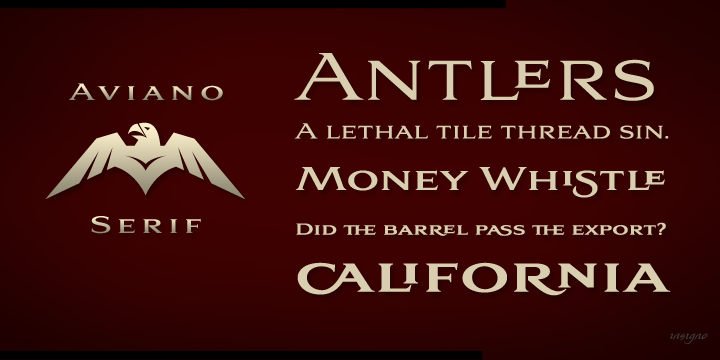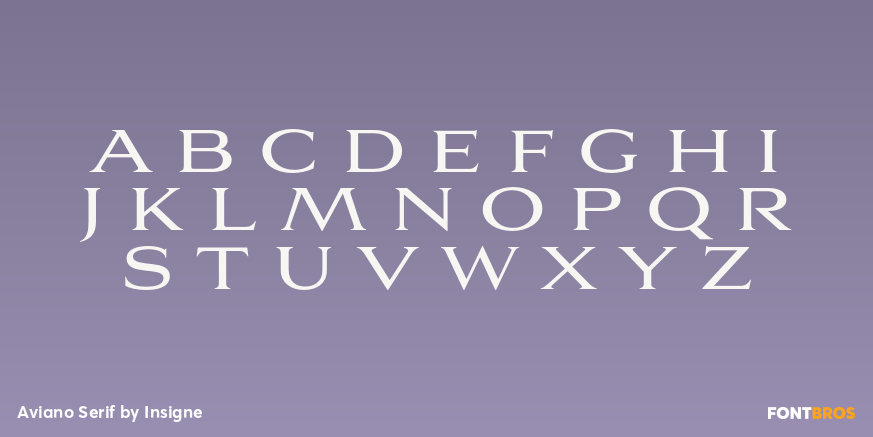
Aviano Serif
Font Family by Insigne
Aviano Serif features the same classically inspired and extended proportions of Aviano, but instead of the brush drawn forms of the original, Aviano Serif features a more geometric take with small, sharp serifs.
Aviano Serif is perfect for mastheads, headlines and powerful logotypes. The Aviano Serif family includes four weights for a wide array of design possibilities.
All weights feature 40 OpenType ligatures, old styles figures, 28 alternate characters and 10 eagle ornaments for unique, custom designs.